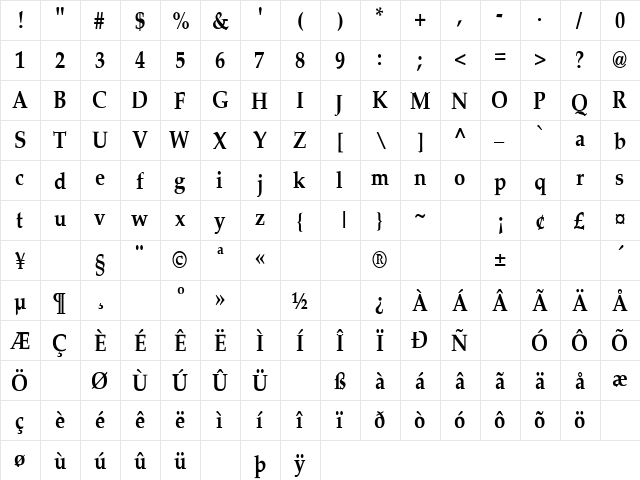
Southbound 12 Regular
Southbound 12 is a composed and adaptable typeface that performs quietly and consistently across a wide range of design contexts.